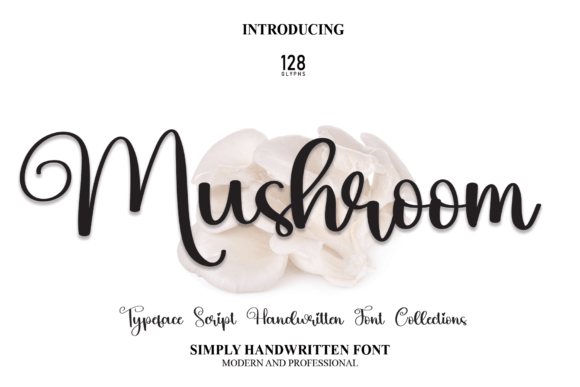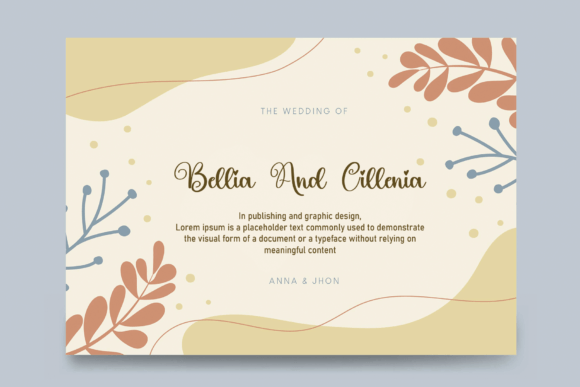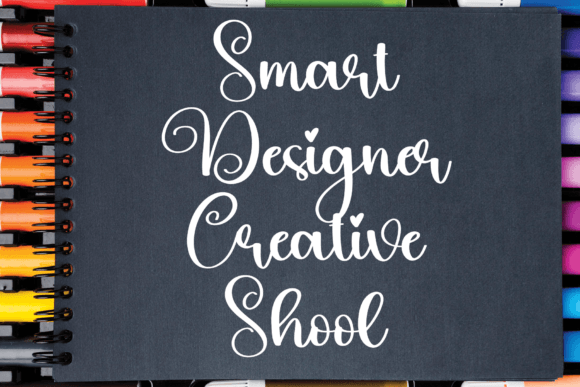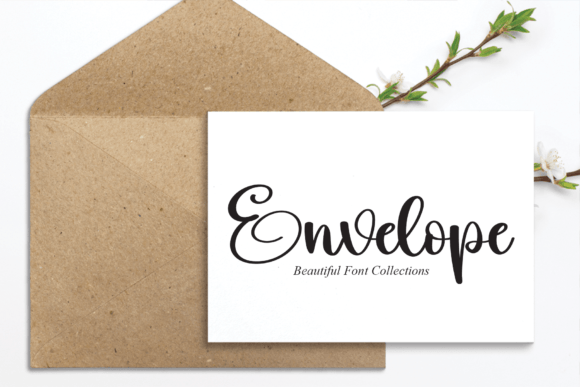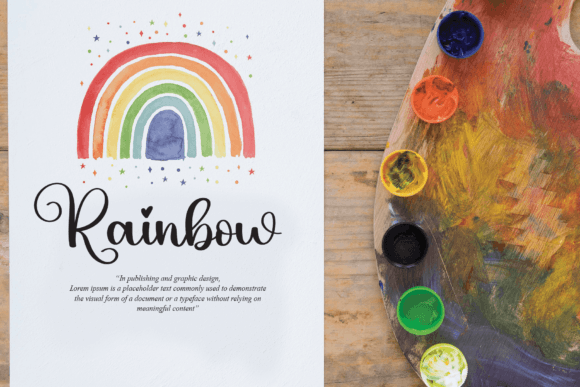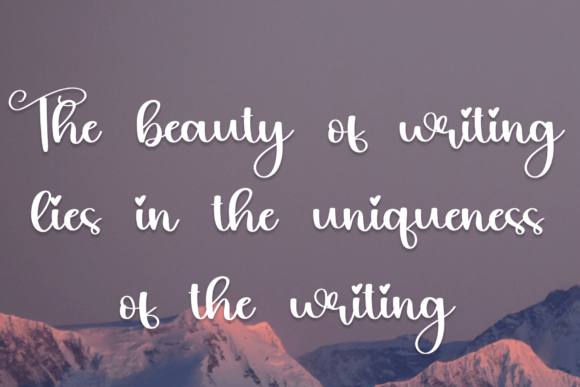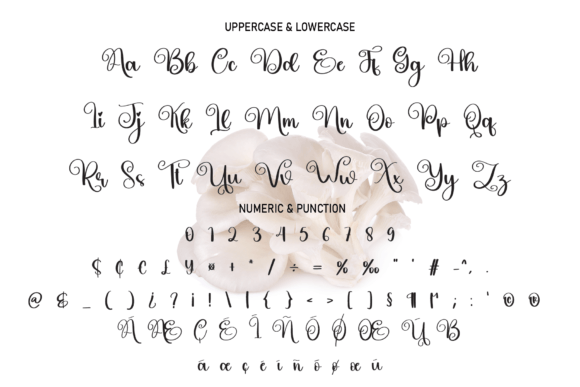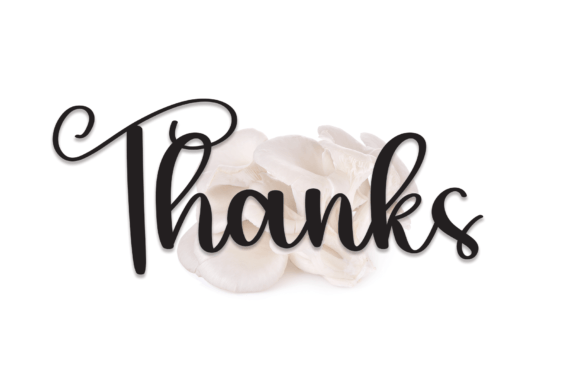
Mushroom Font
About Mushroom Font
Mushroom’s latest style letters bring a unique and versatile touch, making them an ideal choice for a diverse range of creative projects. Whether you’re working on wall displays, crafting wedding invitations, designing social media post logos, creating advertisements, conceptualizing product packaging, developing product designs, working on labels, enhancing photography, implementing watermarks, extending invitations, or engaging in stationery design, these letters have been thoughtfully crafted to cater to a variety of creative needs.
Imagine transforming a space with a captivating wall display that not only grabs attention but also adds a touch of distinctiveness through the whimsical and artistic script of Mushroom’s latest letters. The design elements infuse a sense of creativity, turning any environment into a visually captivating showcase of imagination.
For weddings and other special occasions, Mushroom’s letters add a playful and personalized touch to invitations, setting the tone for a unique and memorable celebration. The handwritten aesthetic of the letters brings an element of charm, resonating with the character of the event.
In the digital realm, Mushroom’s letters shine in social media post logos and advertisements. Their unique design ensures that your brand or message stands out, conveying a sense of creativity and flair. Whether you’re promoting a product, service, or a special event, Mushroom’s letters add a distinctive and artistic touch to your online presence.
When it comes to product packaging and design, Mushroom’s handwritten letters elevate the visual appeal, transforming labels into creative representations of your brand. The artistic nuances contribute to a cohesive and aesthetically pleasing presentation, making your products more memorable and visually appealing to consumers.
Photography projects benefit from the whimsical and creative aesthetic of Mushroom’s letters, especially when used as watermarks. The letters seamlessly integrate into images, adding a touch of artistic flair and personalization to your visual narrative.
Event invitations, whether for formal gatherings or more casual affairs, are enhanced by the playful spirit of Mushroom’s letters, ensuring a memorable and imaginative experience for recipients. Even in the realm of stationery, Mushroom’s letters bring a touch of creativity, allowing for the creation of beautifully designed and personalized letterheads, notecards, and other stationery items.
In summary, Mushroom’s latest style letters are not just characters on a page; they are a tool for creative expression and imagination. Whether you’re working on a grand project or a more whimsical affair, these letters infuse a handwritten taste that adds a layer of creativity and personality. With Mushroom’s letters, your projects become not just visually appealing but expressions of artistic ingenuity.